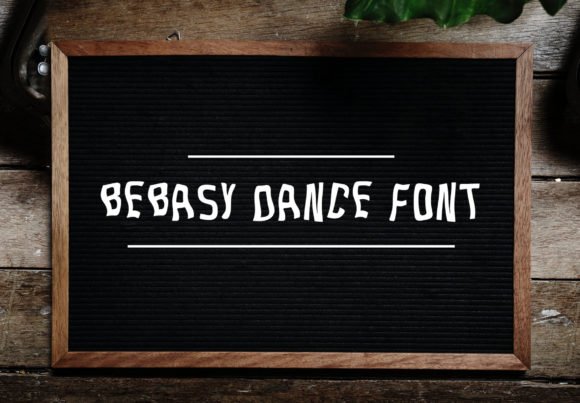
Introduction to Bebasy Dance Font
The Bebasy Dance is a wild, tall sans serif.
It has a bold style and is perfect for adding a playful touch to your designs This cool, handwritten font with its uneven characters can be used for all designs which need a not-so-serious touch.